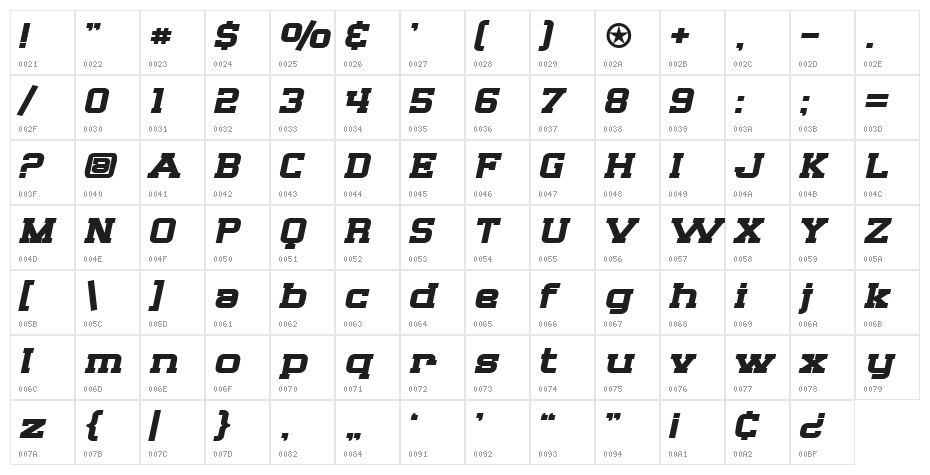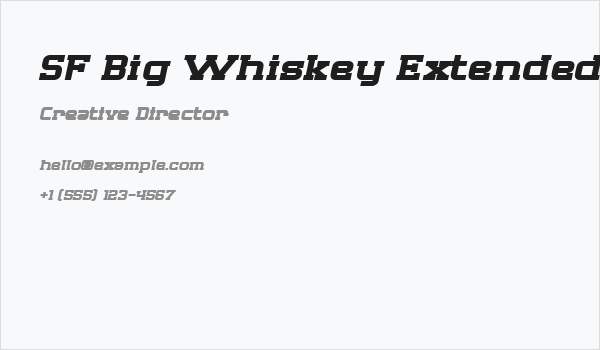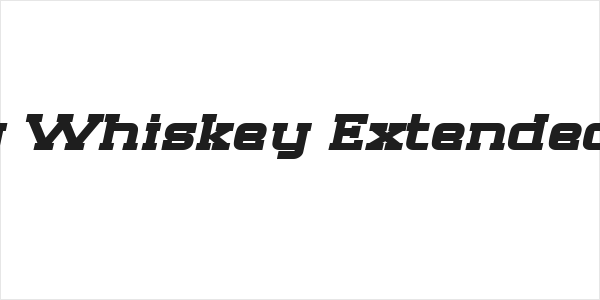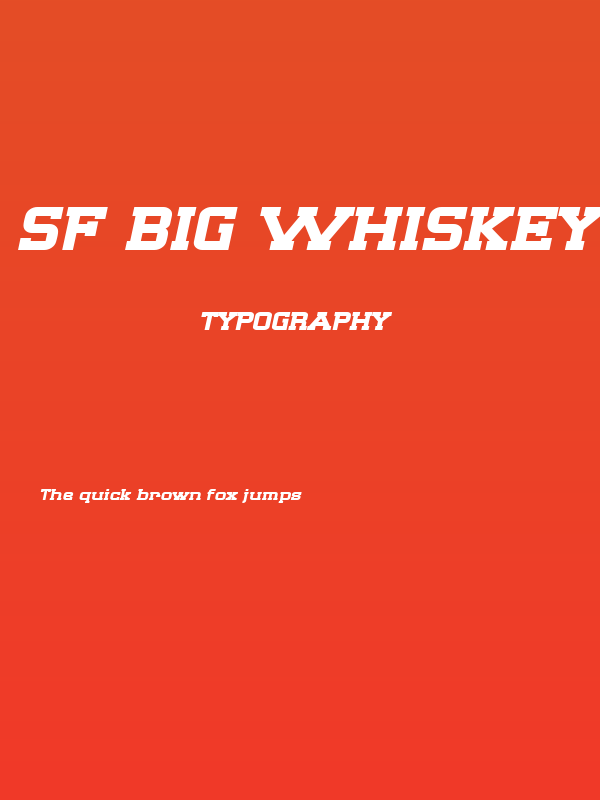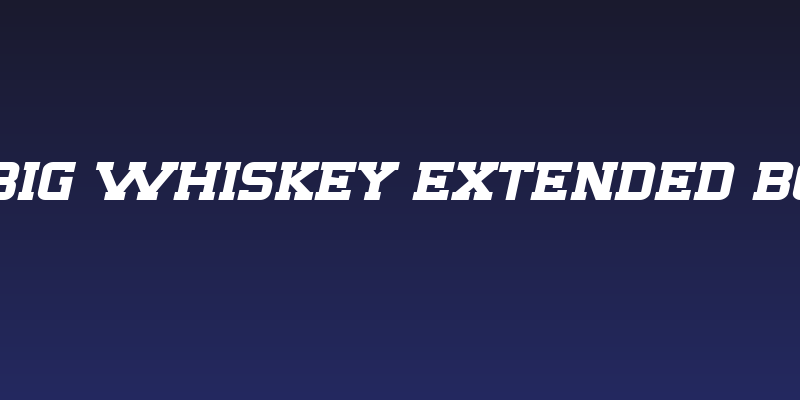
SF Big Whiskey Extended Bold Font
SF Big Whiskey Extended Bold Description
This font features a bold and extended style with a strong, impactful presence. The characters are designed with a slight slant, giving them a dynamic and energetic feel. The uppercase letters are robust and wide, while the lowercase letters maintain a consistent weight, ensuring readability. The numbers are equally bold, matching the overall aesthetic of the font. Special characters are distinct and well-defined, adding versatility to the font's use. The font's design is reminiscent of vintage signage, with a modern twist that makes it suitable for contemporary projects.
| Overall Style | Vintage, Modern |
| Proposed Projects | Ideal for branding, posters, headlines, and any project requiring a strong visual impact. |